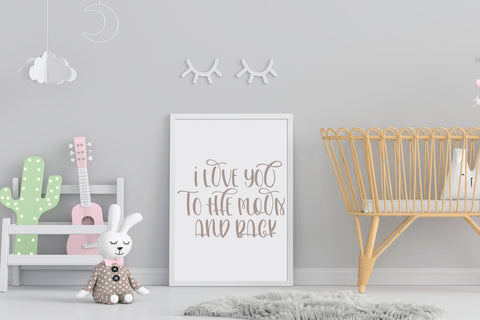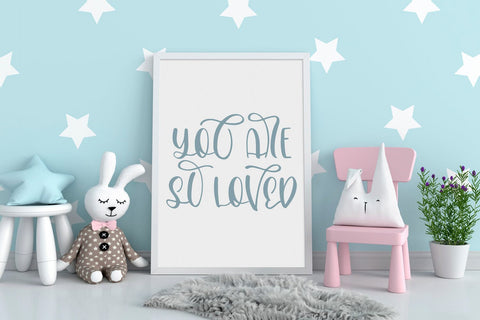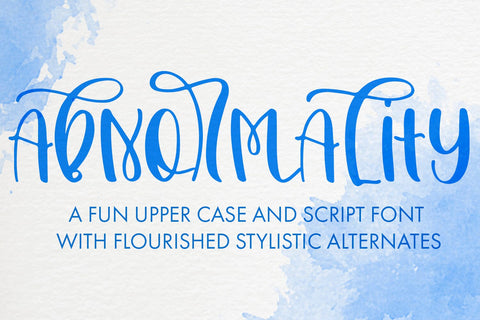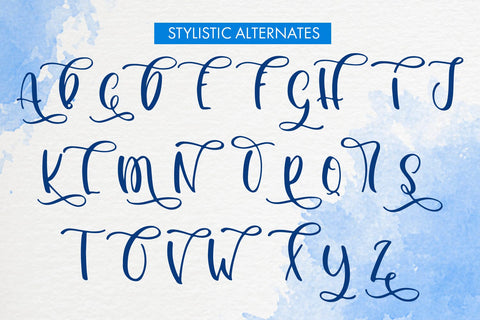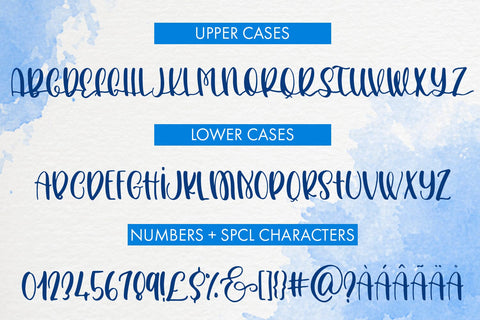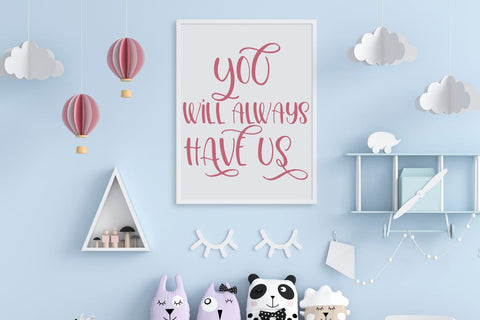
Abnormality
Introducing Abnormality – the font that's anything but ordinary! This unique typeface features an eye-catching upper case script inspired font that will make your designs stand out from the crowd. With its quirky curves and bold lines, Abnormality is perfect for adding a touch of personality and playfulness to your projects.
And because Abnormality is upper case only, you can rest assured that your designs will be both eye-catching and easy to read. Plus, with its handwritten look, Abnormality adds an authentic, personal touch to any project.